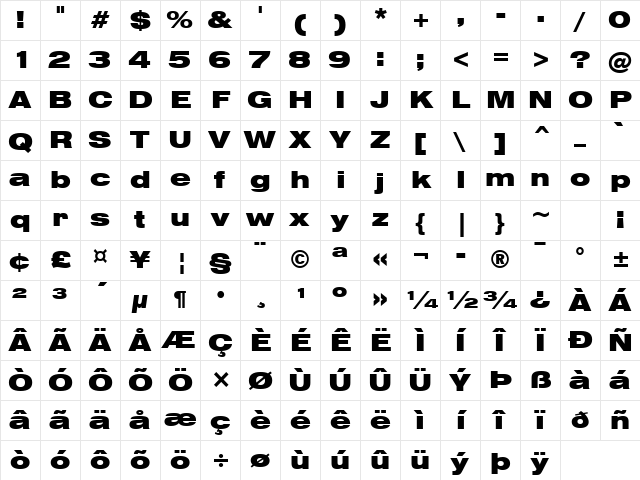
Swis721 BlkEx BT Black
Swis721 BlkEx BT Family
Swis721 BlkEx BT Black
Swis721 BlkEx BT Black Font Preview
Swis721 BlkEx BT Black Uppercase Preview
Swis721 BlkEx BT Black Lowercase Preview
Swis721 BlkEx BT Black Numeric Preview
Swis721 BlkEx BT Black Character Map
Complete Swis721 BlkEx BT Black glyph index. Displaying only characters natively supported by Swis721 BlkEx BT Black font.
Swis721 BlkEx BT Black Character Map
Design Context for Swis721 BlkEx BT
Swis721 BlkEx BT is a composed and adaptable typeface that performs quietly and consistently across a wide range of design contexts.